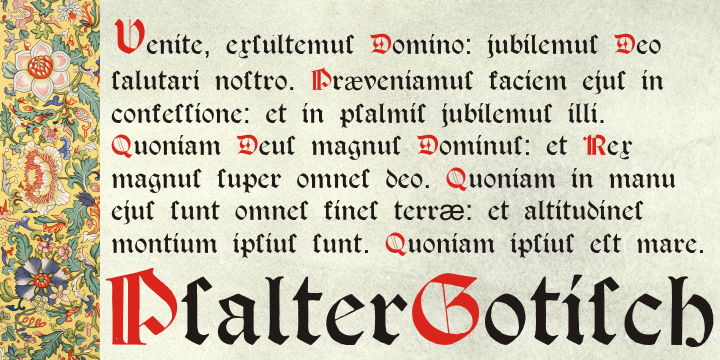
Psalter Gotisch Font is perfect for medieval manuscript reproductions, Gothic cathedral signage, historical document recreations, religious ceremony programs, ancient text publications, monastery library materials, medieval-themed events, ecclesiastical book covers, Renaissance festival promotions, and sacred music publications.
What makes Psalter Gotisch Font so exciting is its magnificent preservation of medieval Gothic calligraphy traditions through meticulously crafted letterforms that transport viewers directly into the sacred scriptoriums of ancient monasteries. The font's design philosophy honors the spiritual devotion and artistic mastery of medieval scribes, featuring elaborate flourishes, precise angular strokes, and ornate decorative elements that capture the essence of illuminated manuscripts and religious texts. Each character appears to be carefully inscribed by candlelight, creating a visual language that instantly communicates reverence, historical authenticity, and the timeless beauty of sacred typography. This remarkable typeface transforms modern text into profound expressions of medieval heritage that resonate with audiences seeking spiritual depth and historical connection.
The Psalter Gotisch Font family includes sacred variations: Regular, Bold, Light, Medium, Condensed, Extended, Italic, Illuminated, and Ornamental styles. Each variation maintains the font's characteristic Gothic reverence while offering different levels of decorative complexity and ecclesiastical detail for various religious and historical design applications.
When searching for a typeface that embodies the essence of medieval spirituality and Gothic architectural grandeur, Psalter Gotisch Font Free Download represents the pinnacle of sacred typography design that elevates any project to new dimensions of historical authenticity and religious significance.
The masterfully crafted letterforms of Psalter Gotisch Font demonstrate superior attention to medieval calligraphic traditions, featuring precise Gothic angles, balanced proportions, and sacred spacing that ensures optimal legibility while maintaining the font's distinctive ecclesiastical character. Its versatile design adapts seamlessly from intimate prayer books to magnificent cathedral inscriptions.
Professional designers working on religious institutions, historical museums, and cultural heritage projects particularly value the font's ability to convey spiritual authority, historical accuracy, and sacred tradition. The typeface works exceptionally well for projects targeting religious communities, history enthusiasts, and anyone seeking to project medieval authenticity and ecclesiastical positioning.
The extensive OpenType features of Psalter Gotisch Font include liturgical alternates, sacred ligatures, and specialized medieval characters that enable designers to create authentic Gothic typography while maintaining the font's distinctive sacred character throughout all design elements and religious applications.